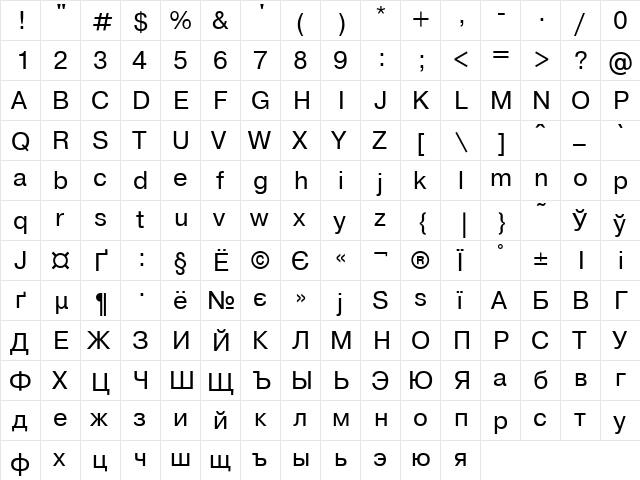
LMUkrLine Regular
Design Context for LMUkrLine Typeface
LMUkrLine offers clean, dependable letterforms without strong stylistic allegiance, making it a practical choice for designers who need flexibility.